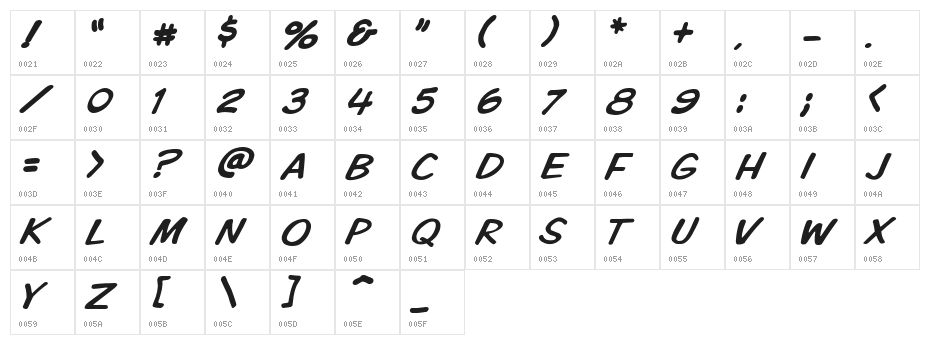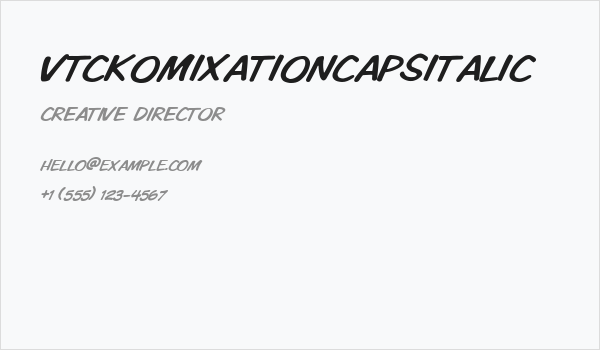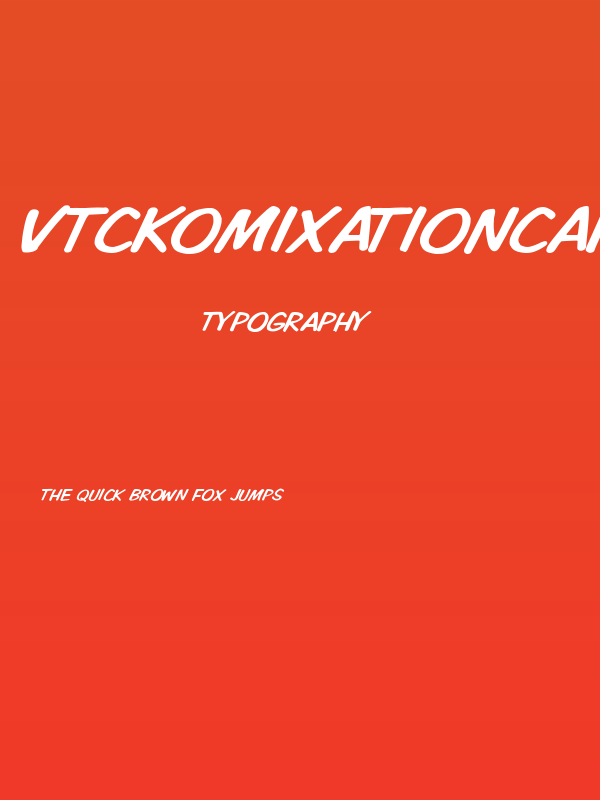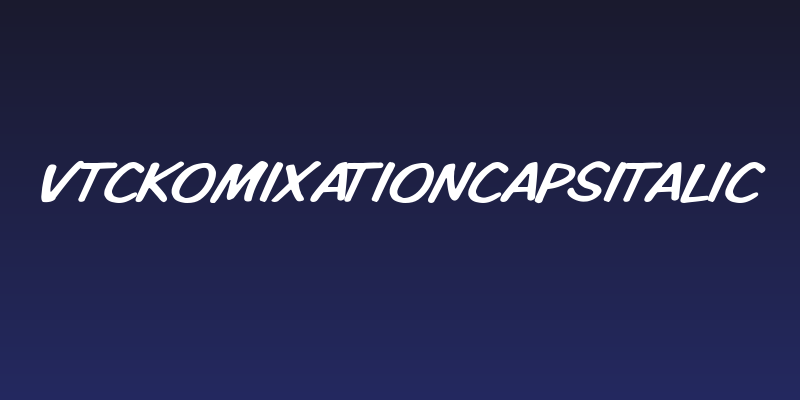
VTCKomixationCapsItalic Font
VTCKomixationCapsItalic Description
This font features a bold, italicized style with a playful and energetic appearance. The characters are slightly slanted, giving a sense of motion and dynamism. The strokes are thick and consistent, providing a strong visual impact. The rounded edges and smooth curves contribute to a friendly and approachable feel. This font is highly legible, making it suitable for various applications where readability is key. The numbers and special characters maintain the same bold and italicized characteristics, ensuring uniformity across all text elements.
| Overall Style | Playful, Energetic |
| Proposed Projects | Ideal for comic book titles, playful branding, children's book covers, and eye-catching posters. |